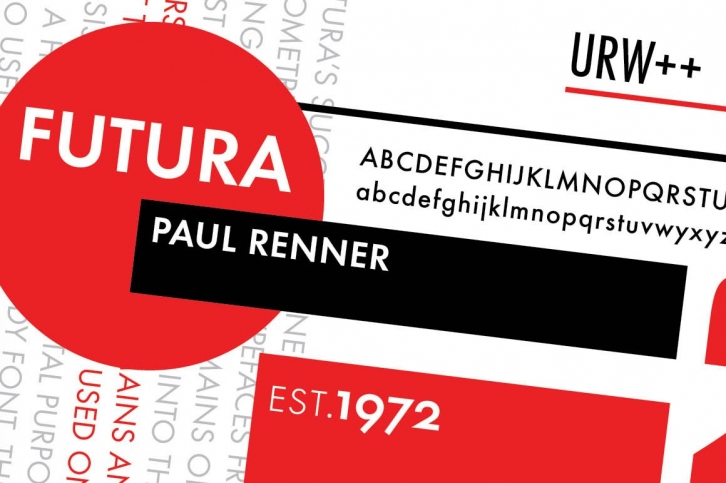
Futura was first presented by the Bauer Type Foundry in 1928 and is commonly considered the major typeface development to come out of the Constructivist orientation of the Bauhaus movement in Germany.
Paul Renner sketched the original drawings and based them on the simple forms of circle, triangle and square. The design office at Bauer assisted him in turning these geometric forms into a functioning type family.